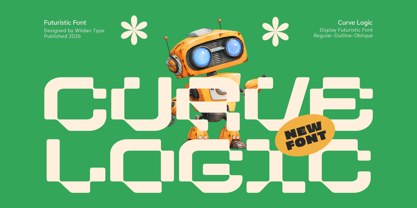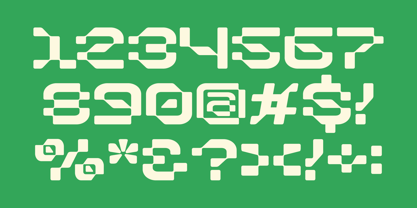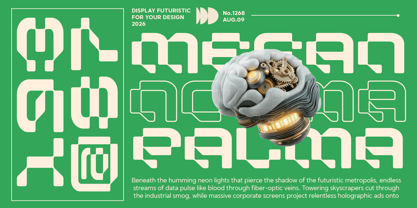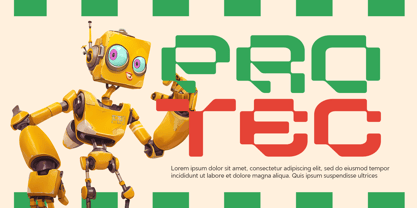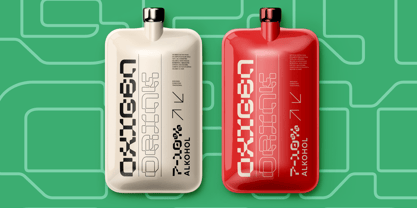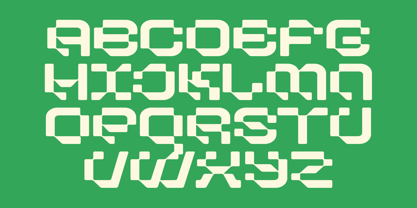
Curve Logic
by Isolatype
The Curve Logic Font Family was designed by Wildan Suprian Syah and published by Isolatype. Curve Logic contains 4 styles and family package options. More about this family
Curve Logic is a sleek, modern futuristic display font crafted to bring a bold tech-forward aesthetic to your creative projects. Designed with smooth curves, modular geometry, and a distinct cyber-robotic feel, this font perfects the balance between high-tech precision and standout creative typography. Featuring multiple styles—Plain, Outline, and Italic, Italic Outline—Curve Logic offers versatile styling options, whether you are building futuristic branding or modern tech concepts.
Designers: Wildan Suprian Syah
Foundry: Isolatype